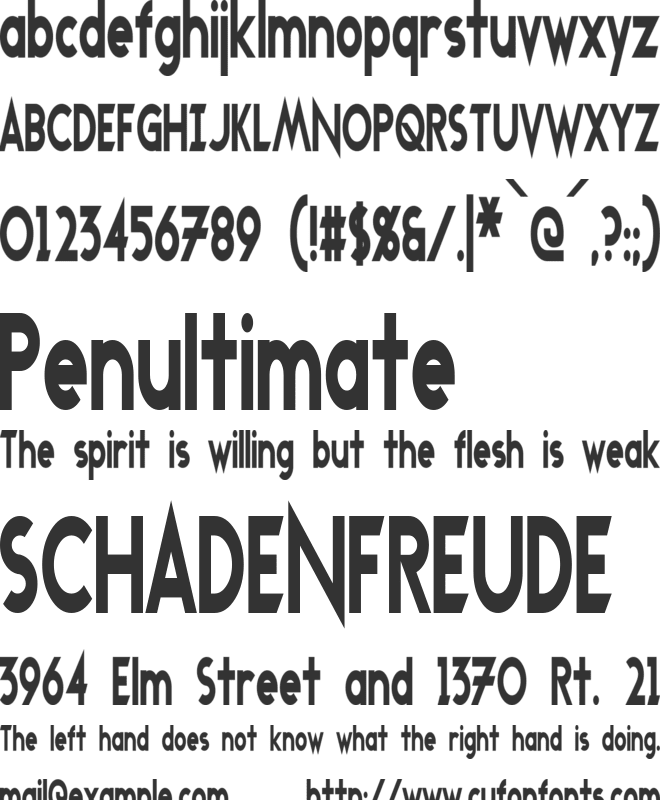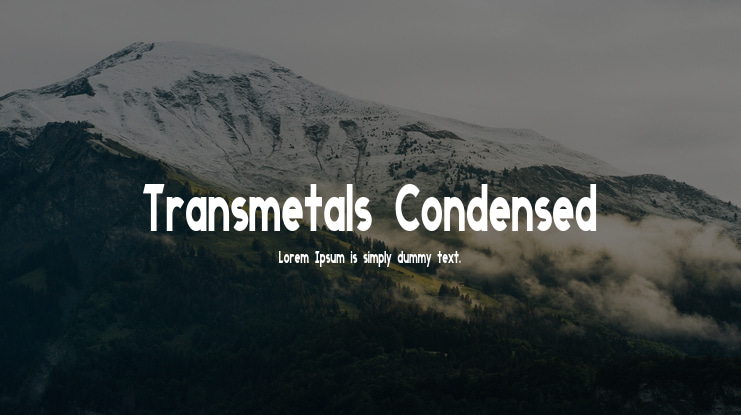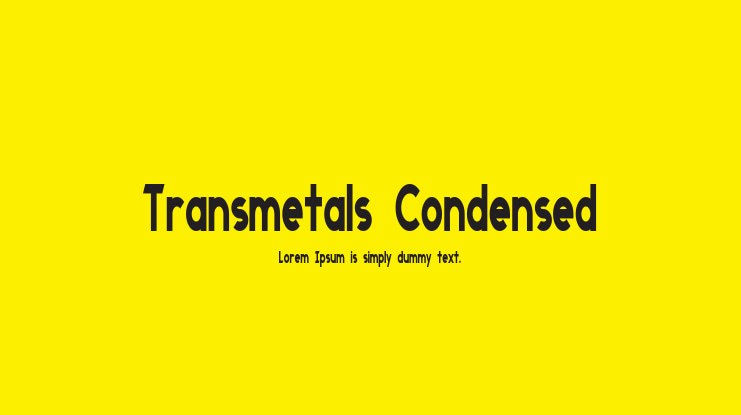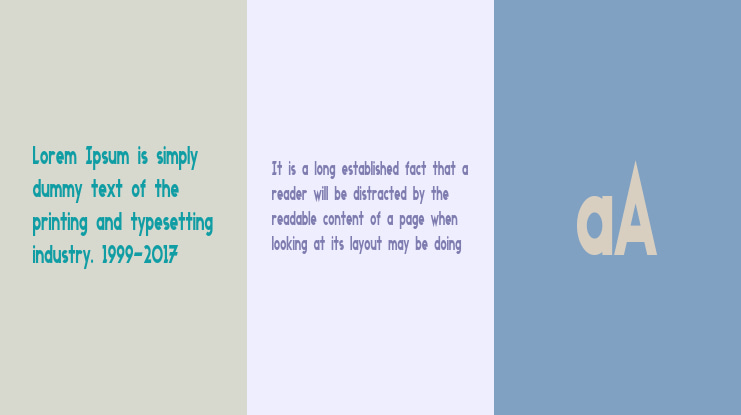
Transmetals Condensed Font Family
Neale Davidson
This bold, slightly-retro technological font is based on Hasbro Inc's, "Beast Wars: Transmetals" logo. Font includes upper and lower case, extended characters, punctuation, and Euro. Also includes italic and condensed versions.